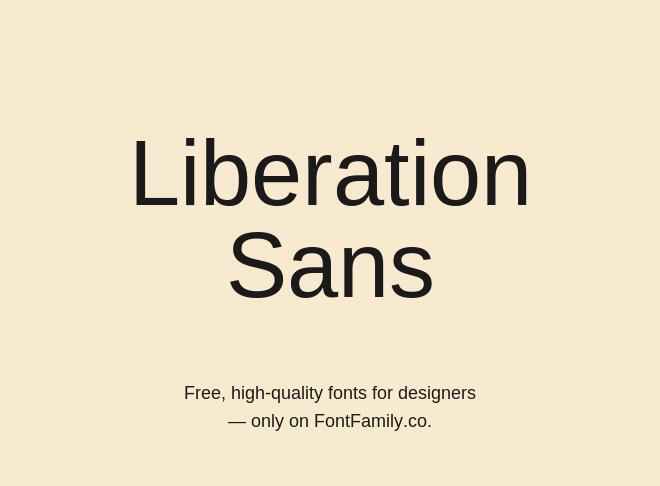
Liberation Sans Font
Liberation Sans Font, designed by Red Hat, is a clean, modern, and geometric sans serif typeface. Released in 2007 under the SIL Open Font License, this font is not only free to use but also a highly versatile choice for designers. Its clean lines and balanced letterforms make it an excellent choice for both print and digital media. Liberation Sans Font closely resembles popular fonts like Arial and Helvetica, but offers a more open and friendly character. It's perfect for web design, branding, and UI/UX design due to its high legibility even at small sizes. Its minimalist and modern style makes it a great choice for professional and corporate designs, while its geometric nature adds a touch of contemporary style. Choose Liberation Sans Font for a clean, clear, and modern typographic presence in your creative projects.